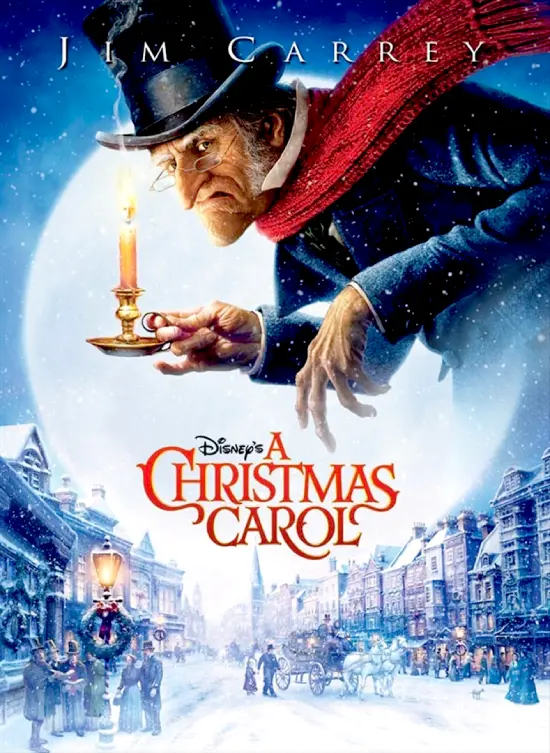
“A Christmas Carol” is a timeless classic by Charles Dickens, and its adaptations have often inspired creative works, including fonts. The 2009 animated film adaptation directed by Robert Zemeckis has led to the creation of a font that captures the essence of the movie’s title design.
The font that replicates the style seen in the 2009 movie “A Christmas Carol” is known as Navidad, created by FZ Fonts. This font is characterized by its festive appearance and is intended to evoke the same holiday spirit as the film.
The Navidad font by FZ Fonts offers a way for fans of “A Christmas Carol” and those looking to add a festive touch to their creations to incorporate the spirit of the film into their work. With its classic and nostalgic feel, it is perfect for personal holiday projects.